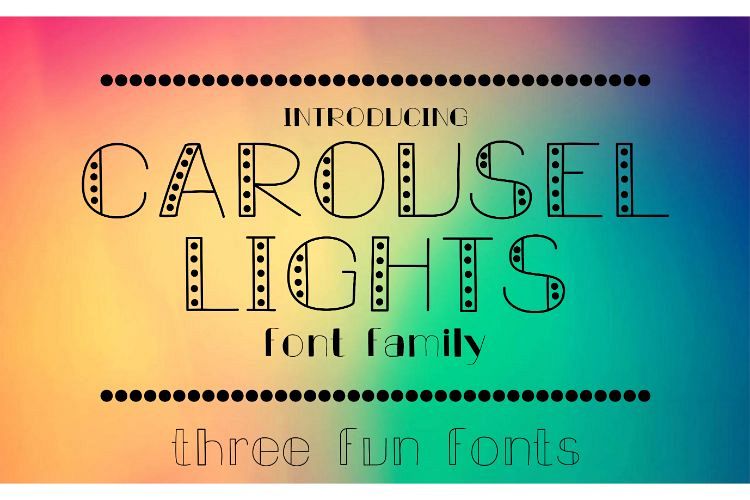
Carousel Lights Font Family, Three Fun Fonts
Carousel Lights Font Family is the perfect font set for your quirky projects. Listing includes Uppercase, Lowercase, Numbers, Symbols and Punctuation.  This font family includes the dotted font, the filled font, and the inline font. TTF files included.